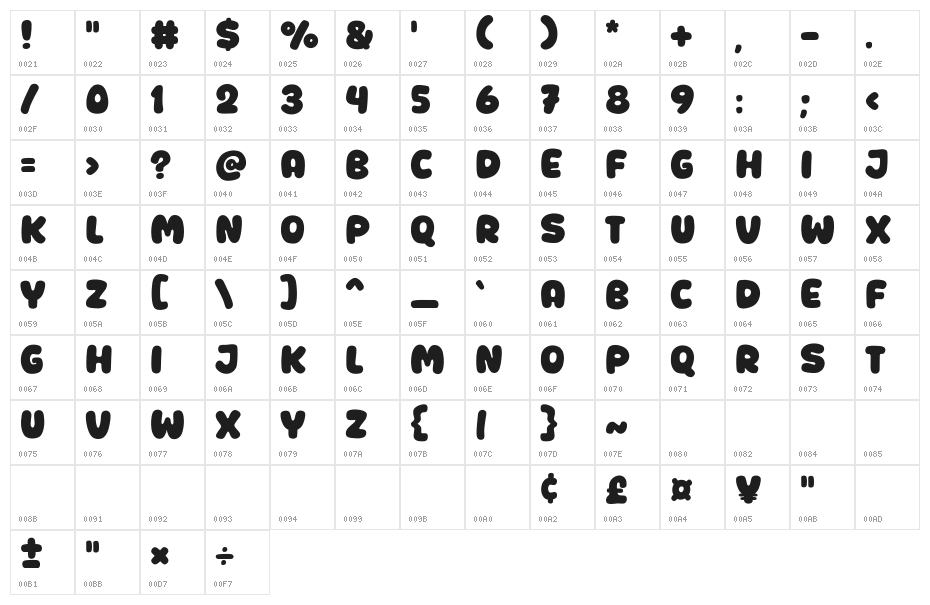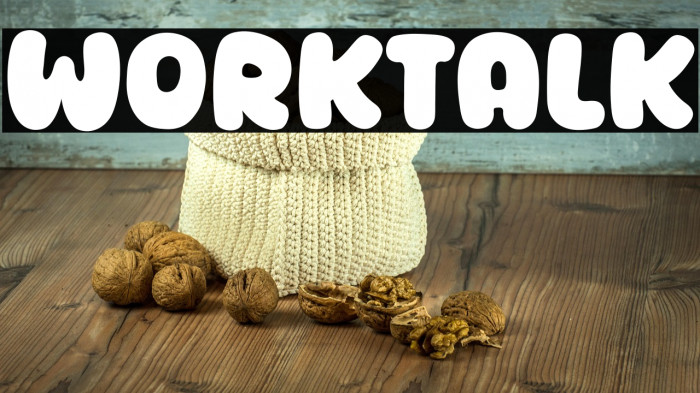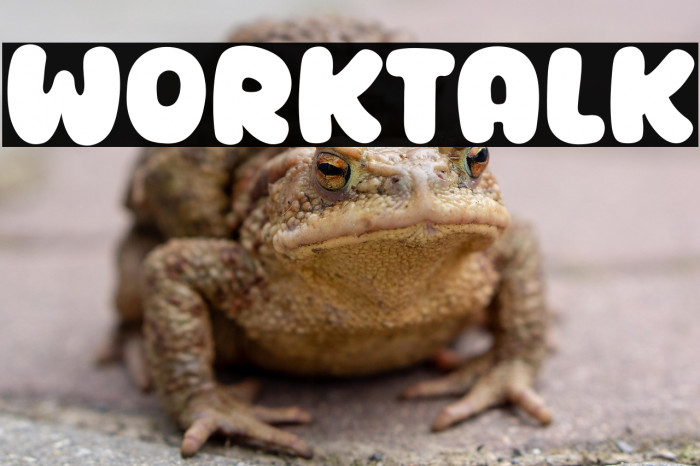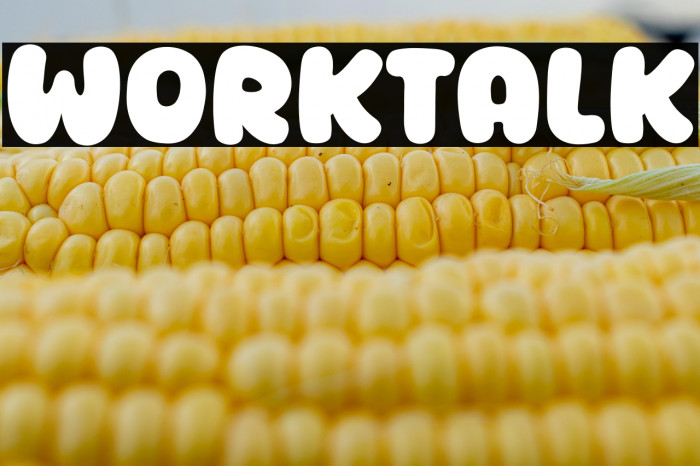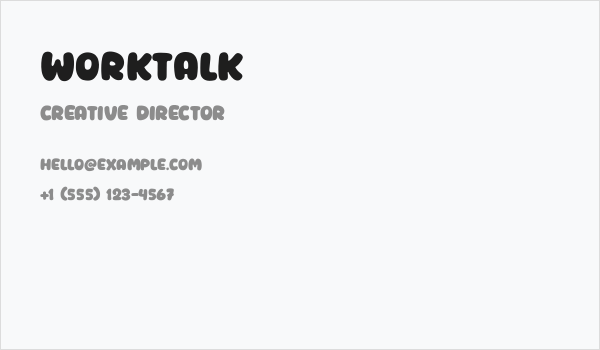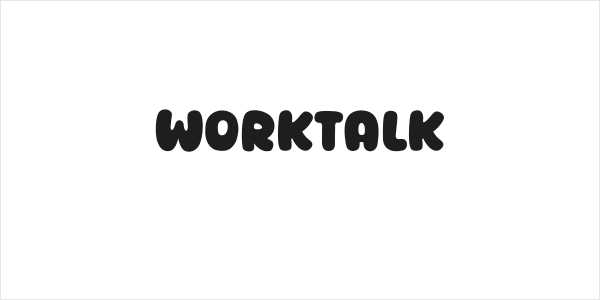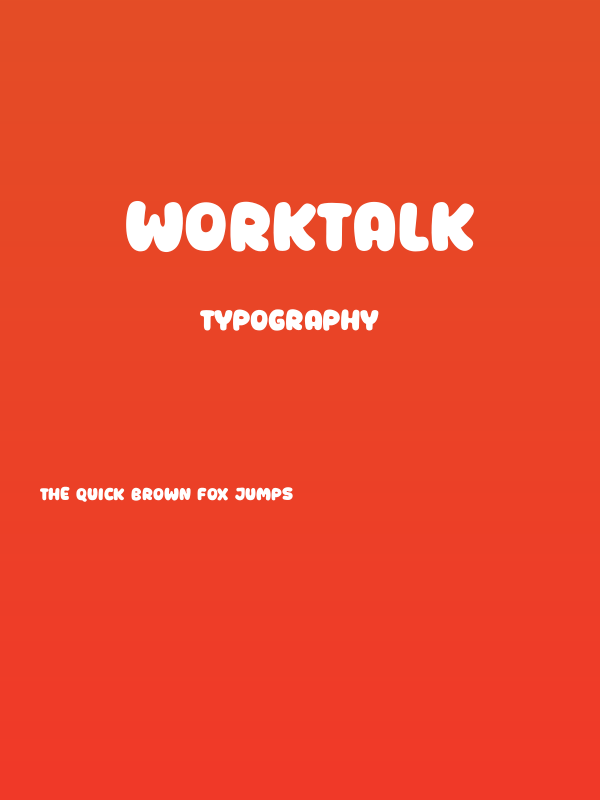
Worktalk Font
Worktalk Description
This font features a bold and playful design with rounded edges and a bubbly appearance. The characters are thick and uniform, creating a sense of fun and approachability. The letters are evenly spaced, contributing to a cohesive and balanced look. Its whimsical style makes it ideal for projects that aim to convey a lighthearted and friendly tone. The font includes a full set of uppercase and lowercase letters, numbers, and a variety of special characters, ensuring versatility in design applications.
| Overall Style | Playful |
| Proposed Projects | Ideal for children's books, playful branding, party invitations, and casual social media graphics. |